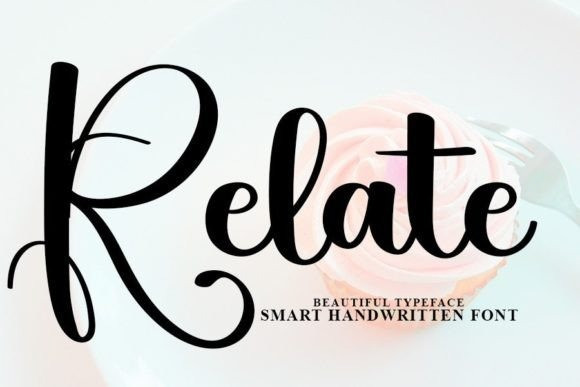
Relate Font
Relate Font is a stylish handwritten font with a contemporary atmosphere and impeccable form, inspired by a timeless classic calligraphy. Balanced and varied, this font was designed to enhance the beauty of your projects.